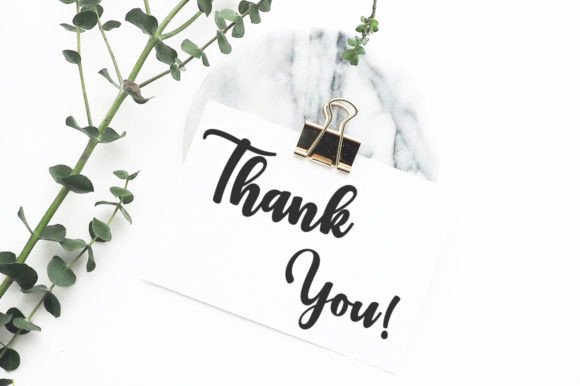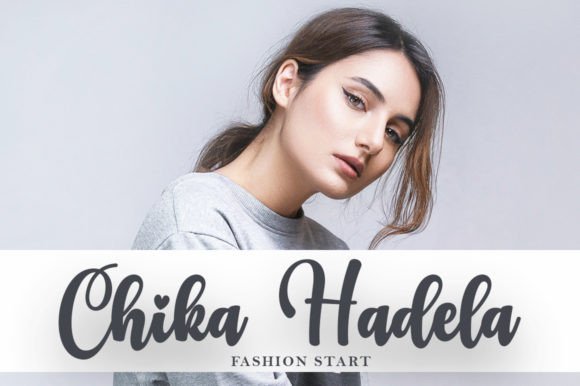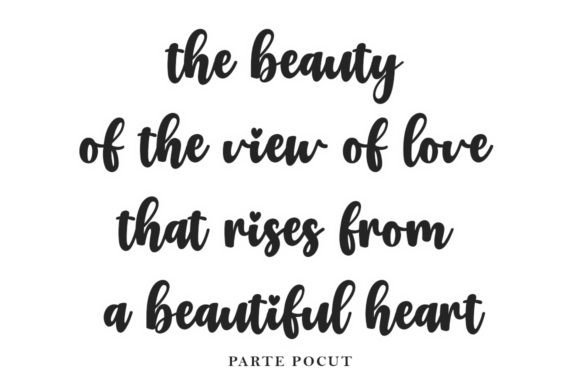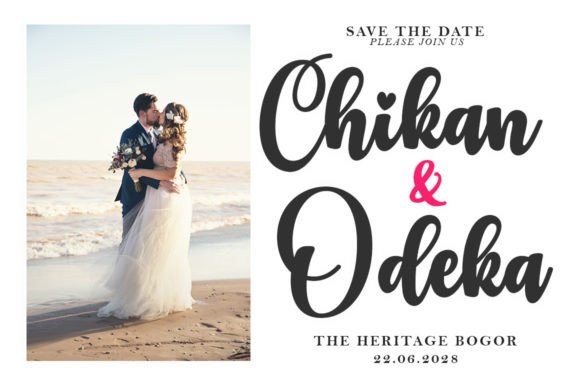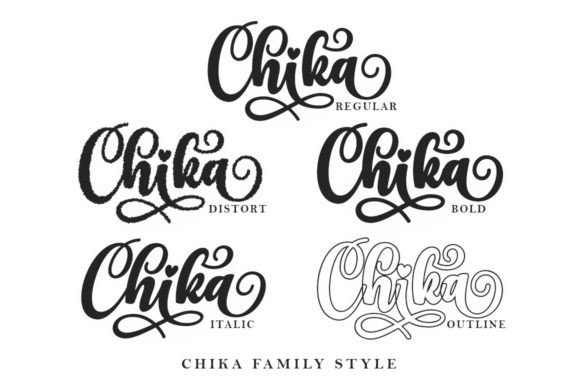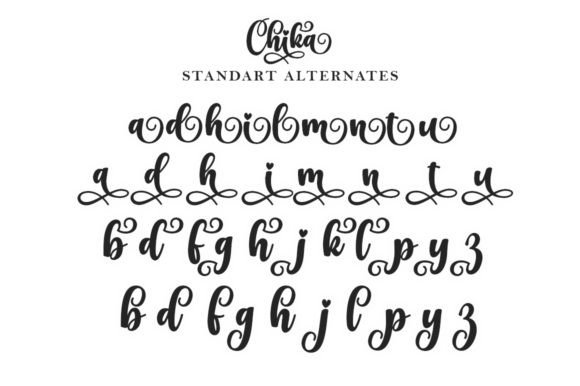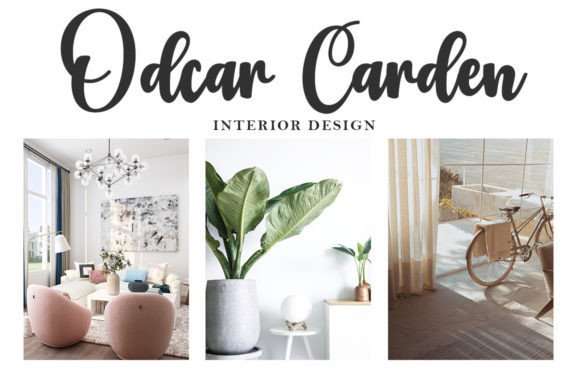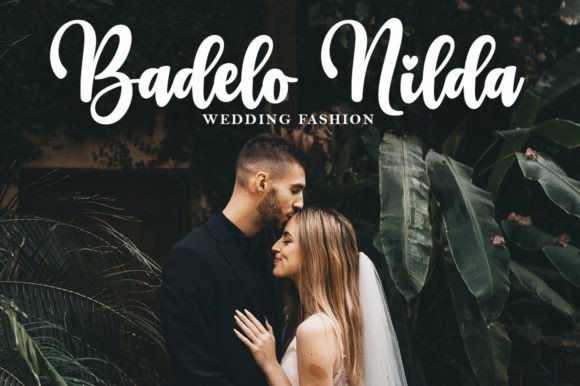
Chika Font
About Chika Font
“Chika” is a classic and straightforward handwritten font crafted with a random freestyle, adding a touch of spontaneity to its design. This typeface’s simplicity and versatility make it well-suited for a wide range of creative applications, making it a valuable choice for various design projects.
Whether you’re working on a logotype, headline, corporate identity, brand identity, apparel industry designs, posters, music or movie-related projects, games, magazines, books, comics, cartoons, YouTube, Instagram, websites, or any other creative endeavor, “Chika” proves to be a reliable and adaptable font.
The random freestyle of “Chika” contributes to its timeless and classic appeal, making it suitable for both contemporary and traditional design contexts. Its handwritten style adds a personal and human touch to your text, making it approachable and friendly in various applications.
This font is designed to make your creative process seamless, allowing it to blend effortlessly into different design scenarios. “Chika” can be the cornerstone of your visual identity, conveying a sense of simplicity and authenticity that resonates with your audience.
In summary, “Chika” is a classic and simple handwritten font that embraces a random freestyle, making it a versatile choice for a multitude of creative design projects. Let it be the font that adds a touch of personality and charm to your logotypes, headlines, and various other design elements, creating a lasting impression in the minds of your audience.